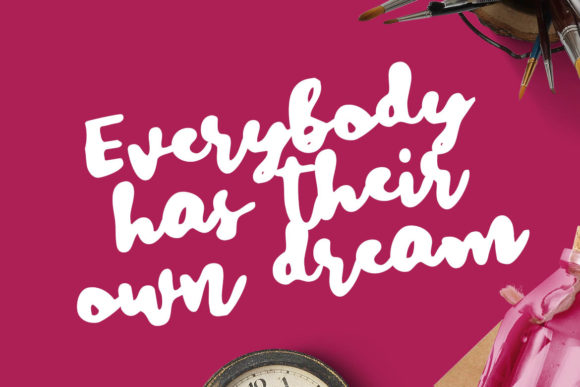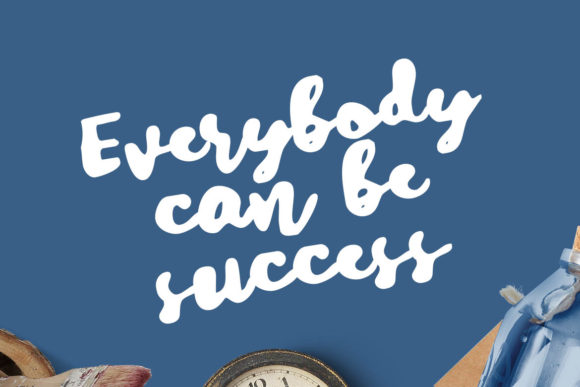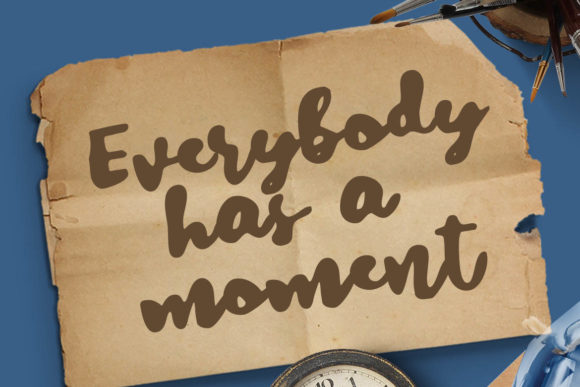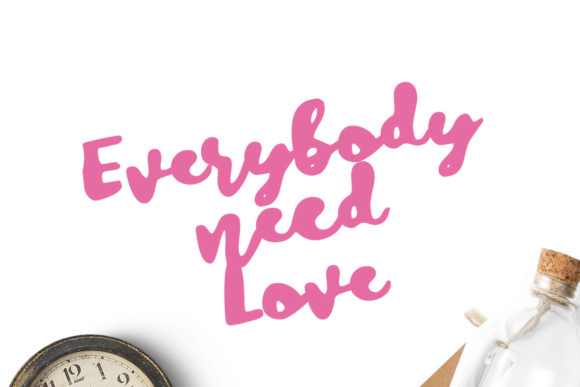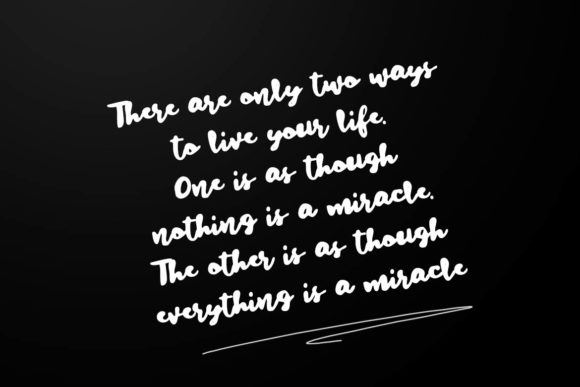
Introduction to Dreaming Times Font
The Dreaming Times is a playful, bouncing script.
It’s natural and loveable and will add a fun touch to your logos, posters, web headers, invitations, and much more .
Key Features of Dreaming Times Font